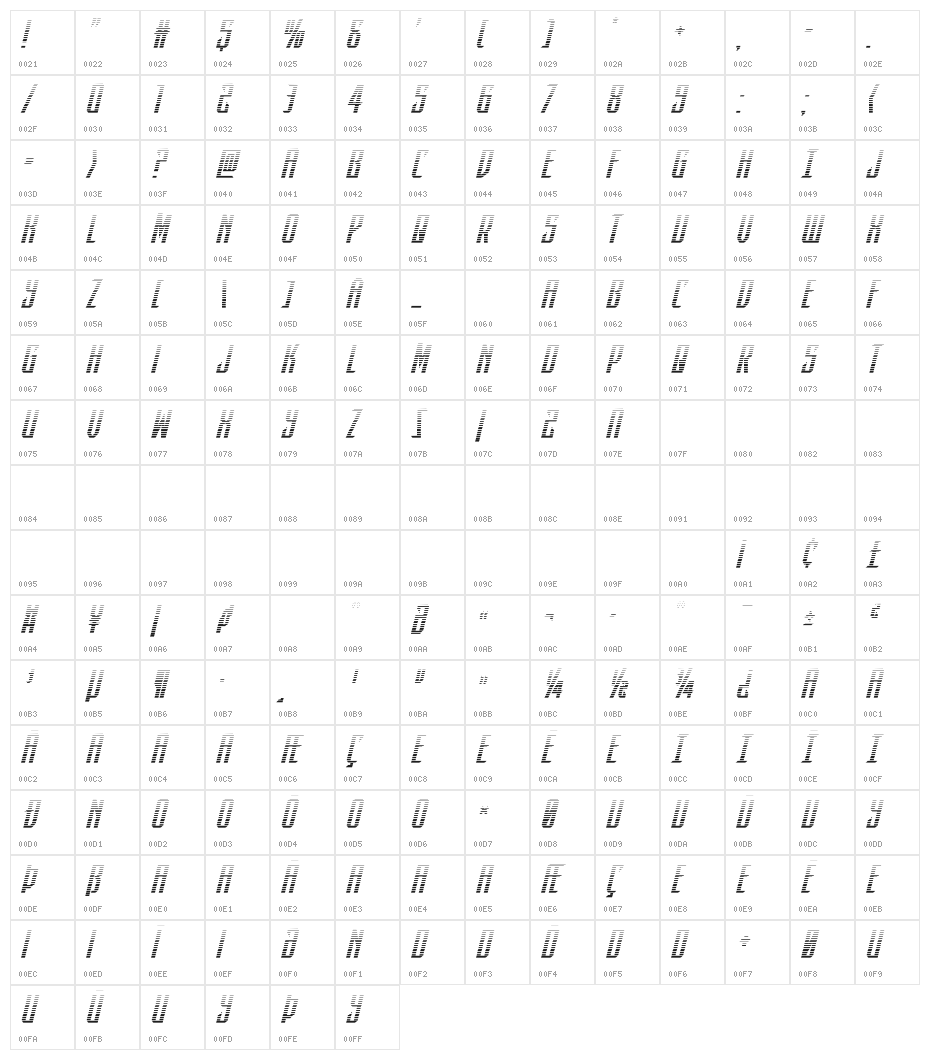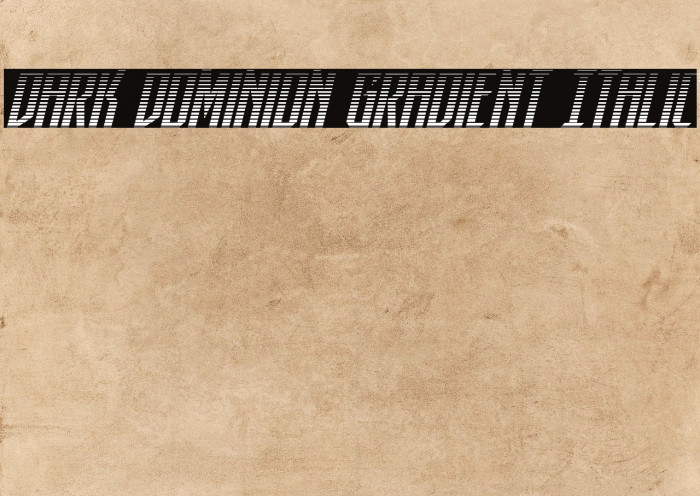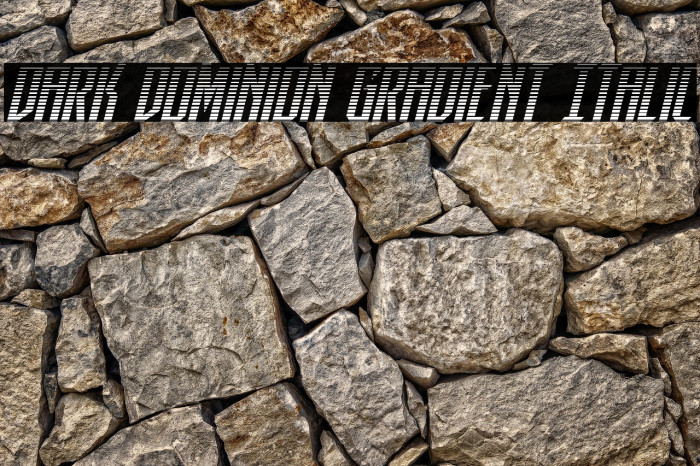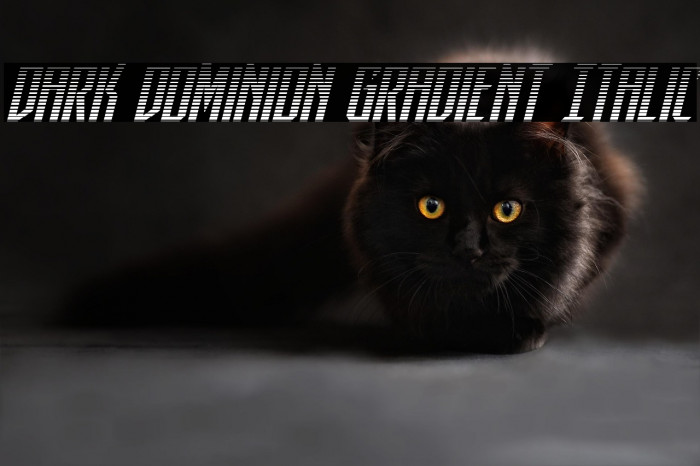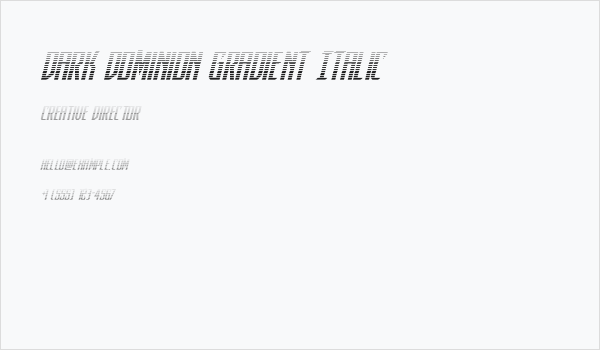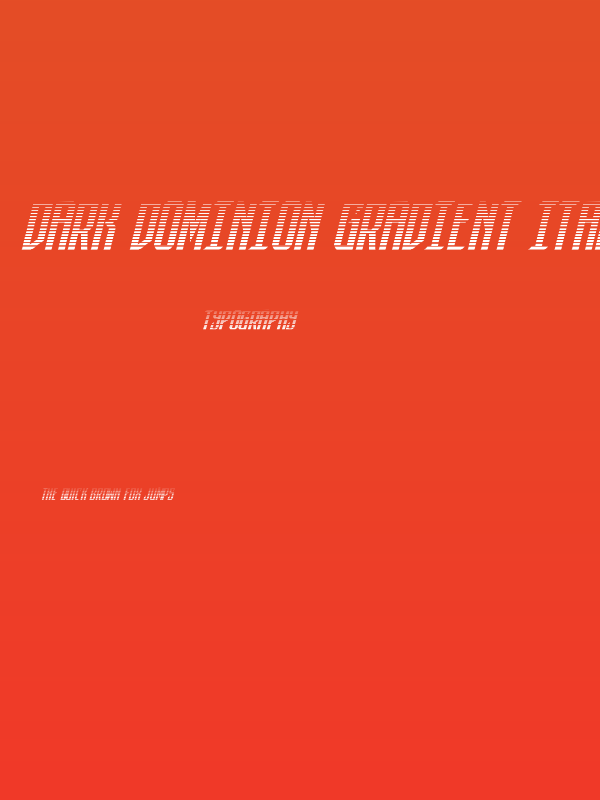
Dark Dominion Gradient Italic Font
Dark Dominion Gradient Italic Description
This font features a dynamic and futuristic design with a gradient effect that gives it a sense of motion and depth. The italicized letters are sharply angled, enhancing the sense of speed and modernity. Each character is composed of horizontal lines that create a gradient from dark to light, adding a unique visual texture. The uppercase and lowercase letters maintain a consistent style, while the numerals and special characters blend seamlessly with the overall design. This font is perfect for projects that require a bold and eye-catching aesthetic.
| Proposed Projects | Ideal for sci-fi movie posters, video game titles, futuristic branding, and technology-related designs. |